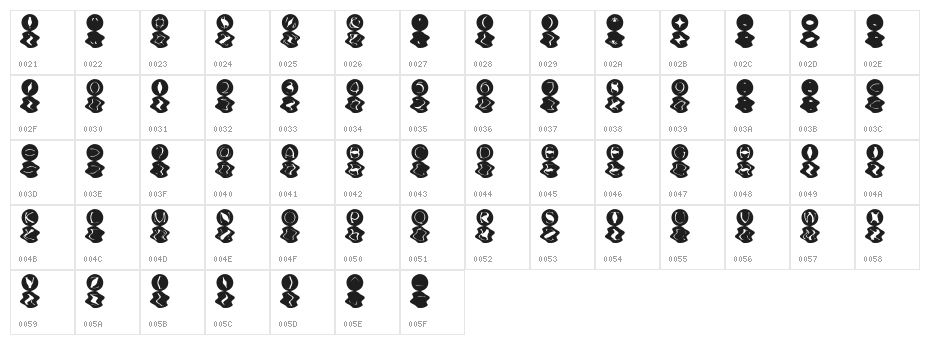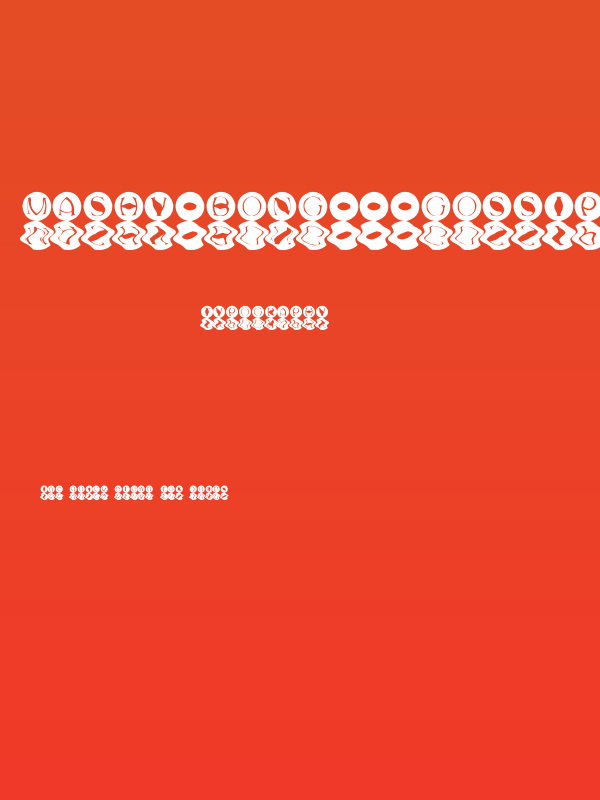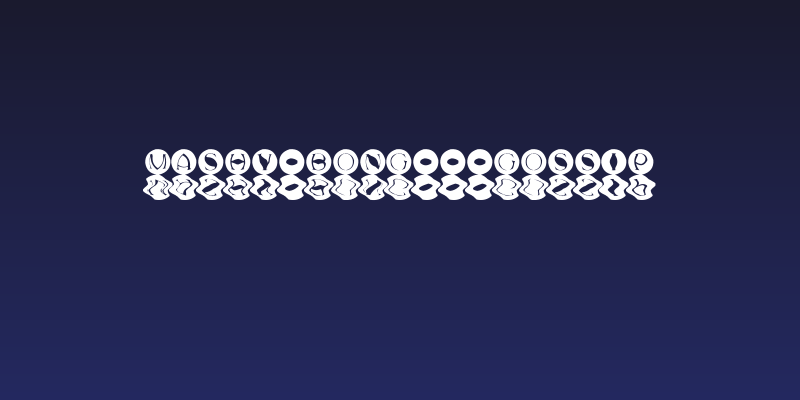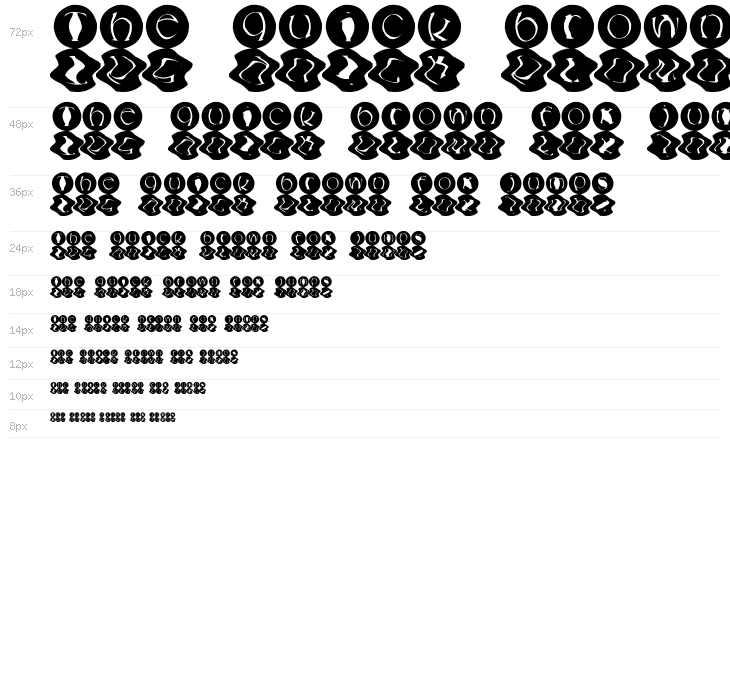
mashy-Bong---Gossip Font
mashy-Bong---Gossip Description
This font features a highly decorative and abstract style, with each character enclosed in a circular shape. The letters and numbers are designed with a unique, distorted appearance, creating a sense of movement and fluidity. The bold, black background contrasts sharply with the white, wavy lines of the characters, making them stand out. This font is visually striking and unconventional, perfect for projects that require a bold statement or artistic flair. The overall design is playful and modern, with a touch of surrealism.
| Overall Style | Modern, Artistic |
| Use Case | Logos, Posters, Artistic Projects |
| Proposed Projects | Ideal for artistic posters, album covers, avant-garde branding, and creative digital media. |